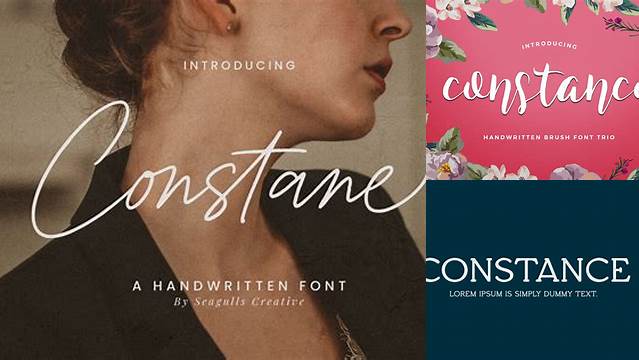
Constance Font: Free Download For Stunning Designs
Hey guys! Are you looking to add a personal, handcrafted touch to your designs? Look no further! The Constance handwritten font is here to save the day. This font is perfect for everything from wedding invitations and greeting cards to branding materials and social media graphics. Let’s dive into why you should definitely snag this font, where you can get it for free, and how to make the most of it. Get ready to unleash your inner creative genius!
1. What is Constance Handwritten Font?
Alright, let's get down to the basics. Constance handwritten font is a beautifully crafted typeface that mimics the natural flow of handwriting. It’s designed to bring a personal and authentic feel to any project. Think about the warmth and charm of a handwritten note – that's exactly what this font brings to the table. The strokes are smooth, the curves are elegant, and the overall vibe is effortlessly stylish. Whether you’re working on a modern minimalist design or a vintage-inspired project, Constance can seamlessly fit in and elevate your work. Imagine using this font for a heartfelt thank you card or a chic business logo. The possibilities are endless, guys! And the best part? You can download Constance handwritten font for free, making it accessible for everyone from professional designers to hobbyists.
Constance isn't just about looking pretty; it's about conveying emotion and personality. It captures the essence of human touch, which is something that can often be lost in the digital world. By using a handwritten font like Constance, you’re adding a layer of authenticity that can resonate deeply with your audience. Picture this: a wedding invitation using Constance, instantly giving guests a sense of the special, personal occasion they’re about to celebrate. Or a blog header that feels welcoming and approachable, drawing readers in with its friendly aesthetic. This font has the power to transform your designs from ordinary to extraordinary, simply by adding that human element. And let’s not forget, a free download means you can experiment without any commitment, trying out different applications and seeing how Constance can enhance your creative projects. So, whether you’re a seasoned designer or just starting out, Constance is a fantastic addition to your font library.
2. Key Features of Constance Font
So, what makes the Constance font so special? Well, it’s not just another pretty face! This font is packed with features that make it a versatile and valuable asset for any designer. First off, its smooth, flowing lines give it a natural, handwritten feel. This is crucial because it's what makes the font stand out from typical, sterile digital fonts. You want your designs to feel authentic, right? Constance delivers on that front. Think about how you can use these lines to create elegant headings or charming body text. The fluidity of the font brings a certain grace to any design, making it more visually appealing and engaging.
Beyond the aesthetics, Constance also boasts excellent readability. What’s the point of a beautiful font if no one can read it? This font strikes the perfect balance between style and clarity, ensuring that your message gets across effectively. Whether you’re using it in print or on screen, Constance remains legible and easy on the eyes. This is especially important for projects like websites and presentations, where clear communication is key. Imagine using Constance for your website's main headings, drawing visitors in with its unique yet readable style. Or think about crafting a presentation that feels both professional and personal, thanks to the font's elegant clarity. Furthermore, the Constance font often includes a variety of weights and styles, giving you even more flexibility in your design choices. You might find options for bold, italic, and light versions, allowing you to create visual hierarchy and add emphasis where needed. This versatility means you can use Constance for a wide range of projects, from formal documents to casual social media posts. And with a free download available, you can explore all these features without any financial commitment, truly making the most of what this font has to offer.